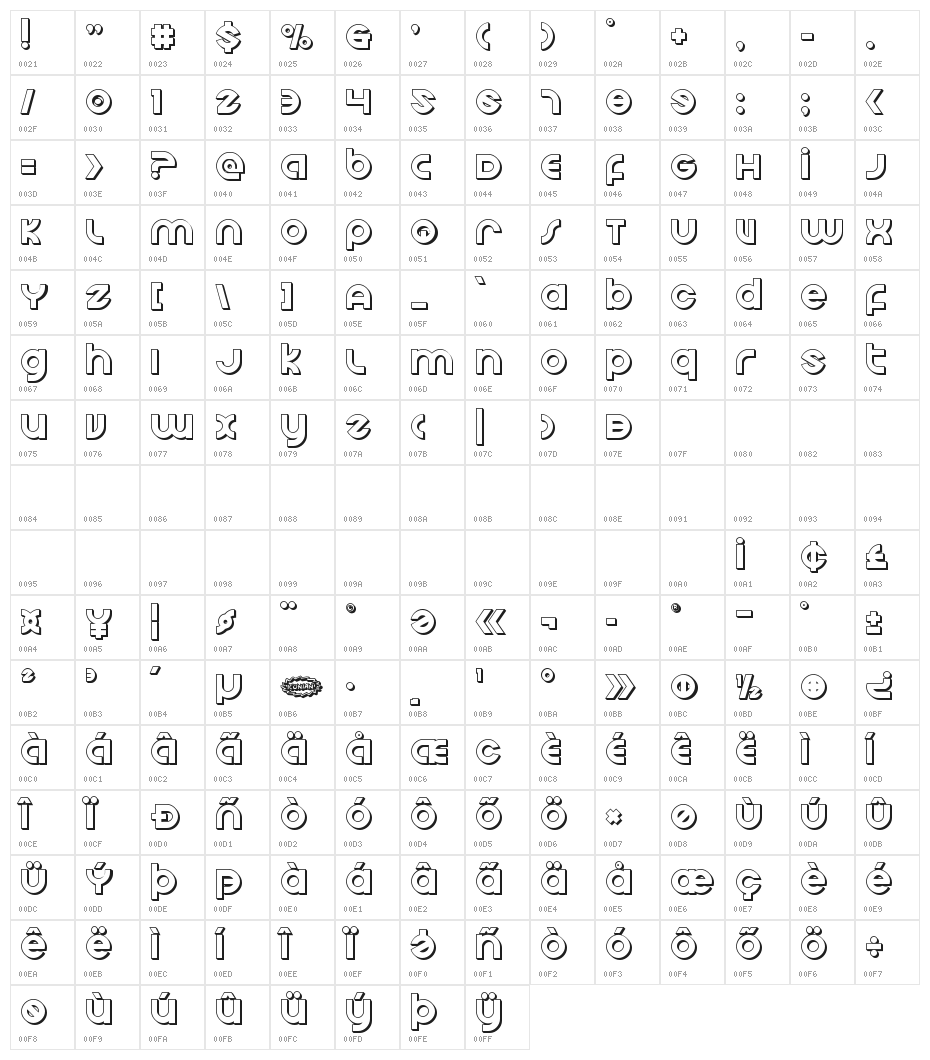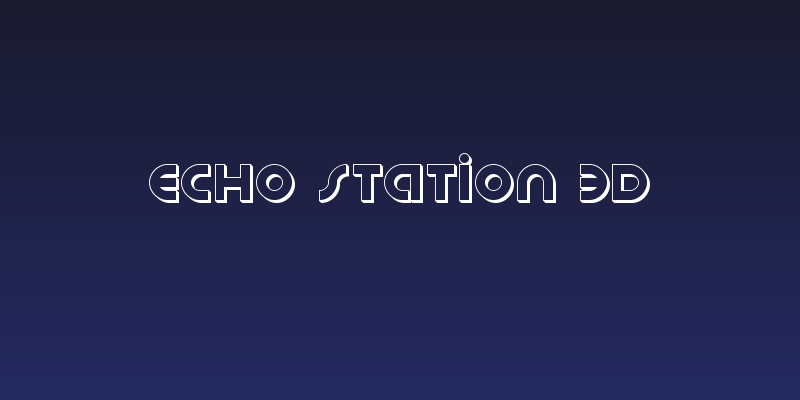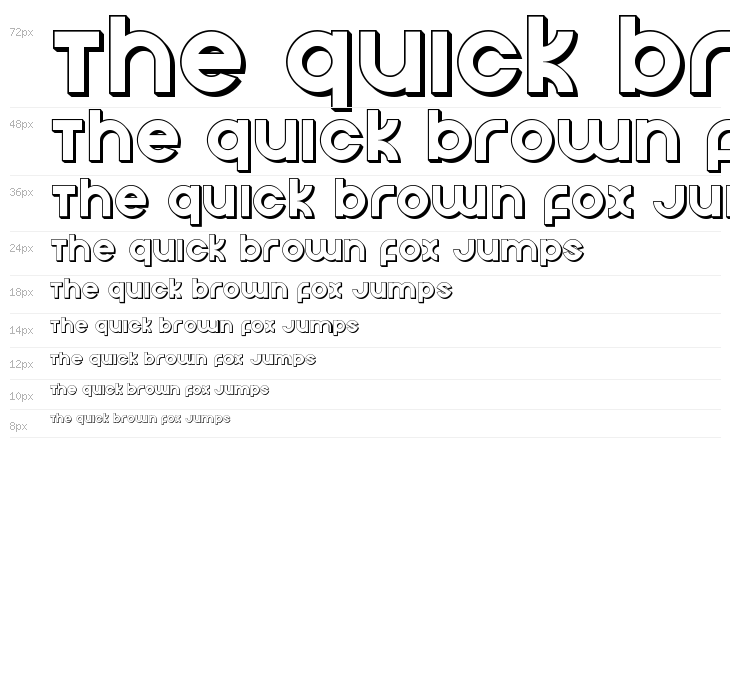
Echo Station 3D Font
Echo Station 3D Description
This font features a bold, geometric design with a three-dimensional effect that gives it a futuristic and dynamic appearance. The characters are outlined with a shadow, creating a sense of depth and movement. The uppercase and lowercase letters share a consistent style, with rounded edges and a uniform thickness. The numerals and special characters maintain the same aesthetic, ensuring a cohesive look across all text elements. This font is ideal for projects that require a modern and eye-catching typeface.
| Proposed Projects | Ideal for futuristic branding, sci-fi themed designs, video game titles, and modern advertising campaigns. |